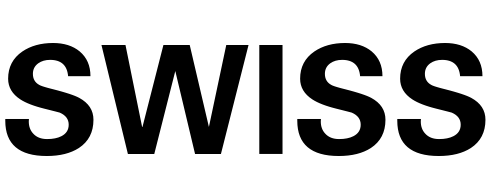
Swiss Airline Font
AirlineSwiss International Air Lines (SWISS) is the national airline of Switzerland. It was formed in 2002 after the bankruptcy of Swissair and is now owned by the Lufthansa Group. SWISS operates flights to over 100 destinations worldwide, including major cities in Europe, North America, Asia, and Africa. The current logo for Swiss International Air Lines AG has a tailfin with the Swiss cross inside it, making it apparent that it is an airline from Switzerland.
The word SWISS is boldly written in red to the right of the Swiss tailfin. It appears to be in Univers 65 Bold typeface. The font is a commercial one and you can purchase and download the font here.